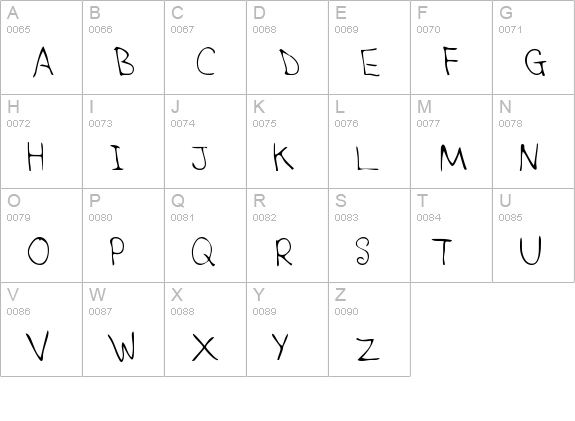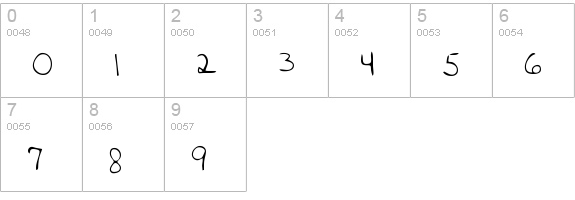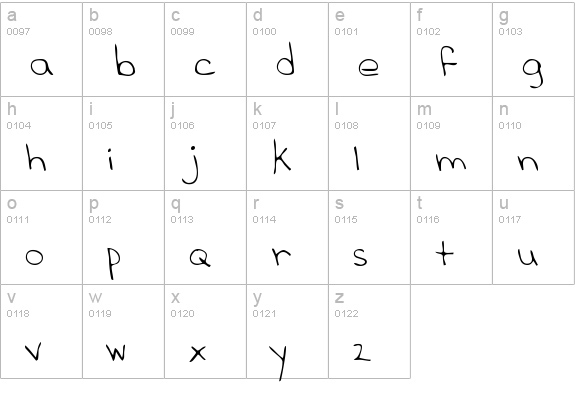
WaynesHand Regular Font Details
WaynesHand Regular is the standard, neutral variant in the WaynesHand typeface family \xE2\x80\x94 well suited to general body text, paragraphs, and standard typographic work.
WaynesHand Regular font is a visually appealing and versatile typeface that exudes a sense of creativity and uniqueness. With its charming hand-drawn style, this font adds a personal touch to any design project, whether it's a logo, poster, or website. What sets WaynesHand Regular font apart is not only its aesthetic appeal but also its accessibility. This font is freely available to download at FontsMarket.com, making it an excellent choice for designers, artists, and anyone looking to add a touch of authenticity to their work without breaking the bank. The smooth curves and organic lines of WaynesHand Regular font give it a distinctively handmade feel, creating a warm and inviting atmosphere. The letters have a playful and casual appearance, making them perfect for projects that require a relaxed and friendly vibe. Whether you're designing a greeting card, creating a book cover, or designing a t-shirt, WaynesHand Regular font is a versatile choice that can be used for a variety of purposes. Its legibility and charming character make it suitable for both small and large text sizes, ensuring that your message is conveyed clearly and effectively. With WaynesHand Regular font, you can effortlessly infuse your designs with a touch of whimsy and personality. Its free availability at FontsMarket.com makes it even more appealing, as you can start using this delightful typeface right away, without any restrictions or limitations. So why wait? Download WaynesHand Regular font today and let your creativity shine!